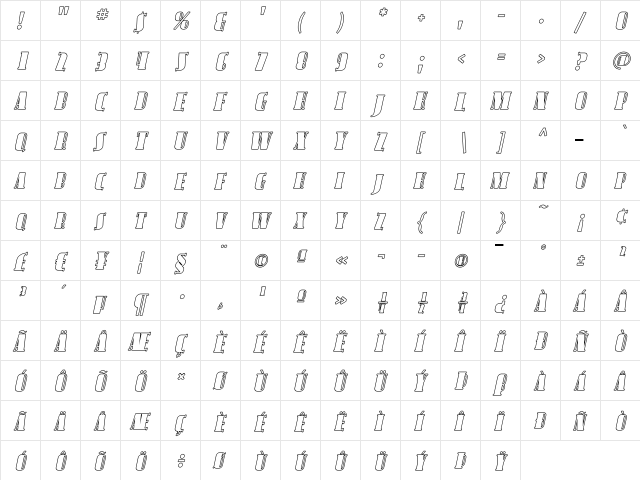
Avondale SC Outline Italic
Design Context for Avondale SC Outline Typeface
Avondale SC Outline is built around its visual character rather than neutral utility — its distinctive forms are designed to make an impression at display sizes. Its italic angle brings a sense of urgency and motion to the letterforms.
Font Pairing: Pair with a clean neutral sans-serif for body copy to let Avondale SC Outline's character lead without overwhelming the composition.
Pro Tip: Treat Avondale SC Outline as the centrepiece of your typographic hierarchy. One strong heading set in a decorative face can carry an entire layout.